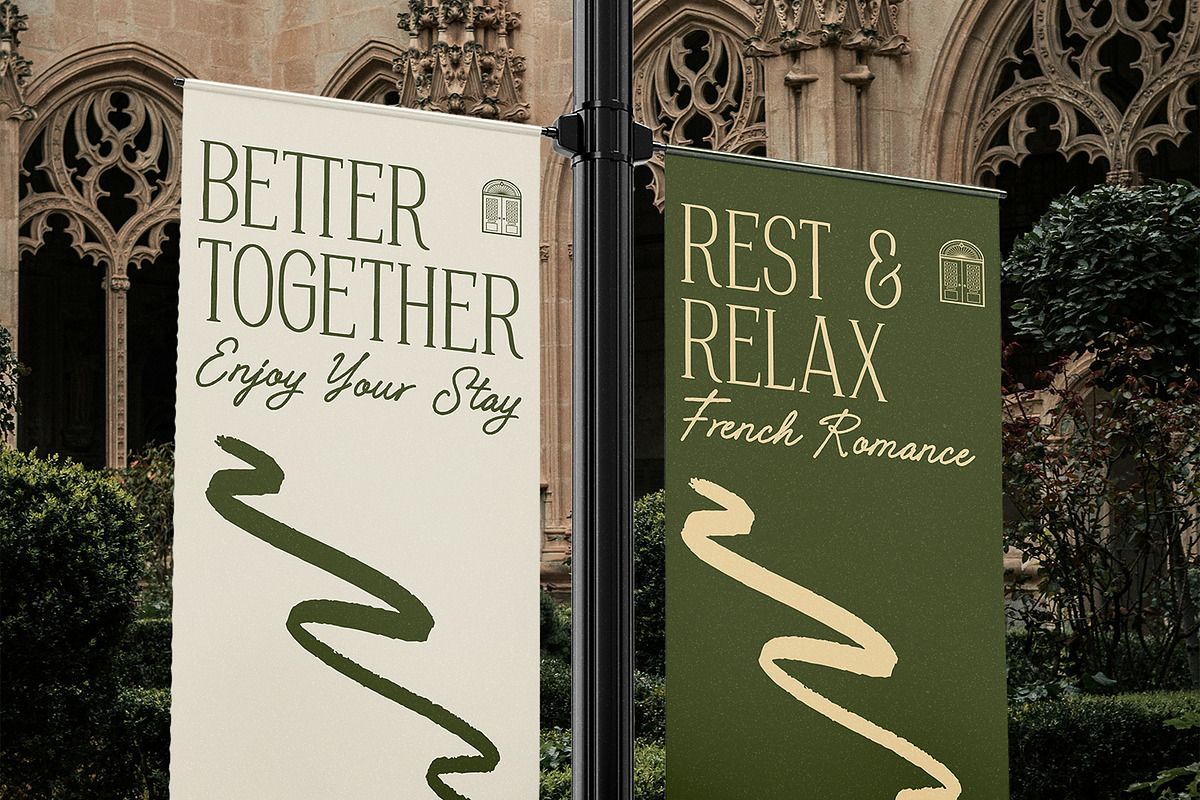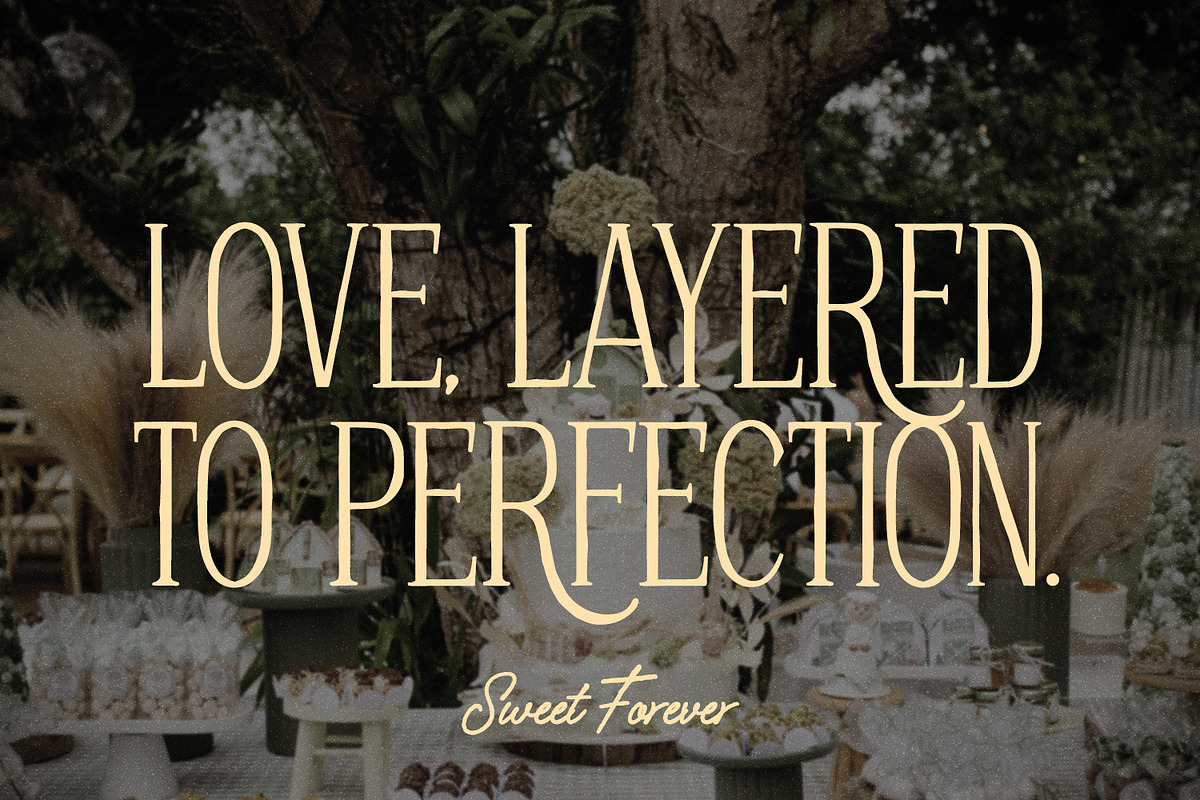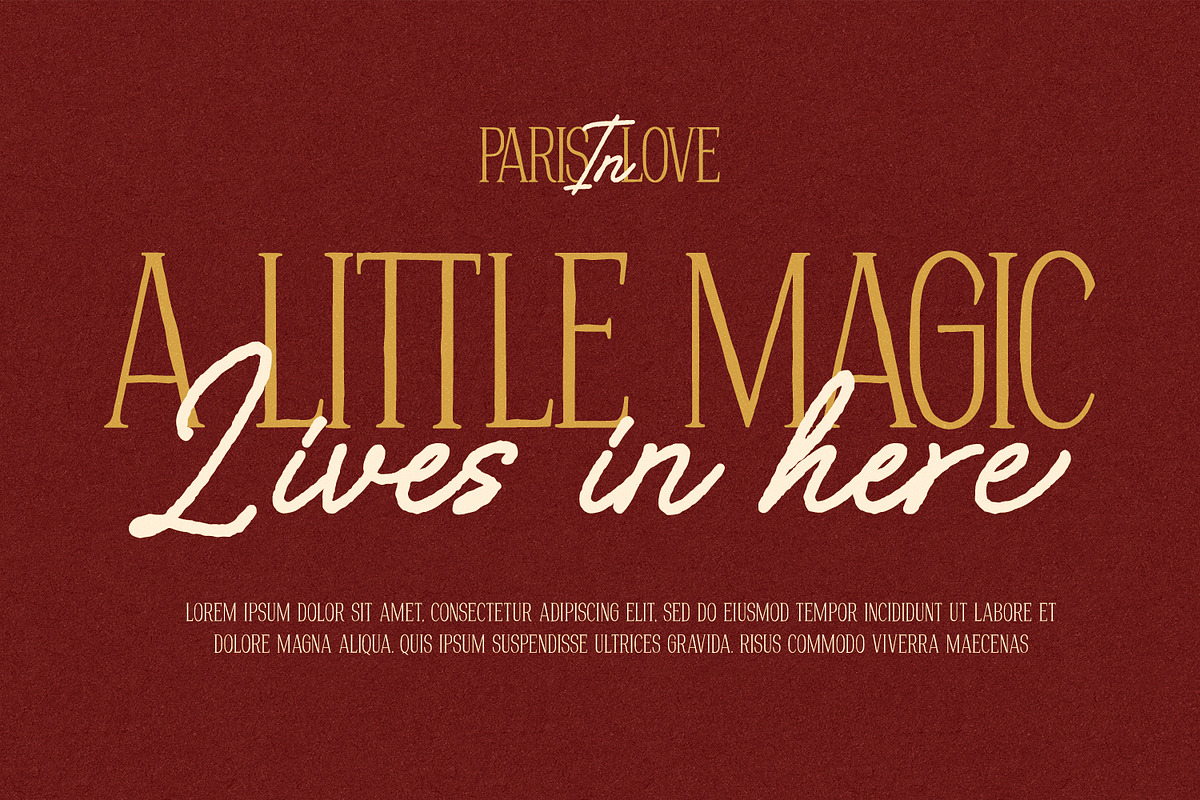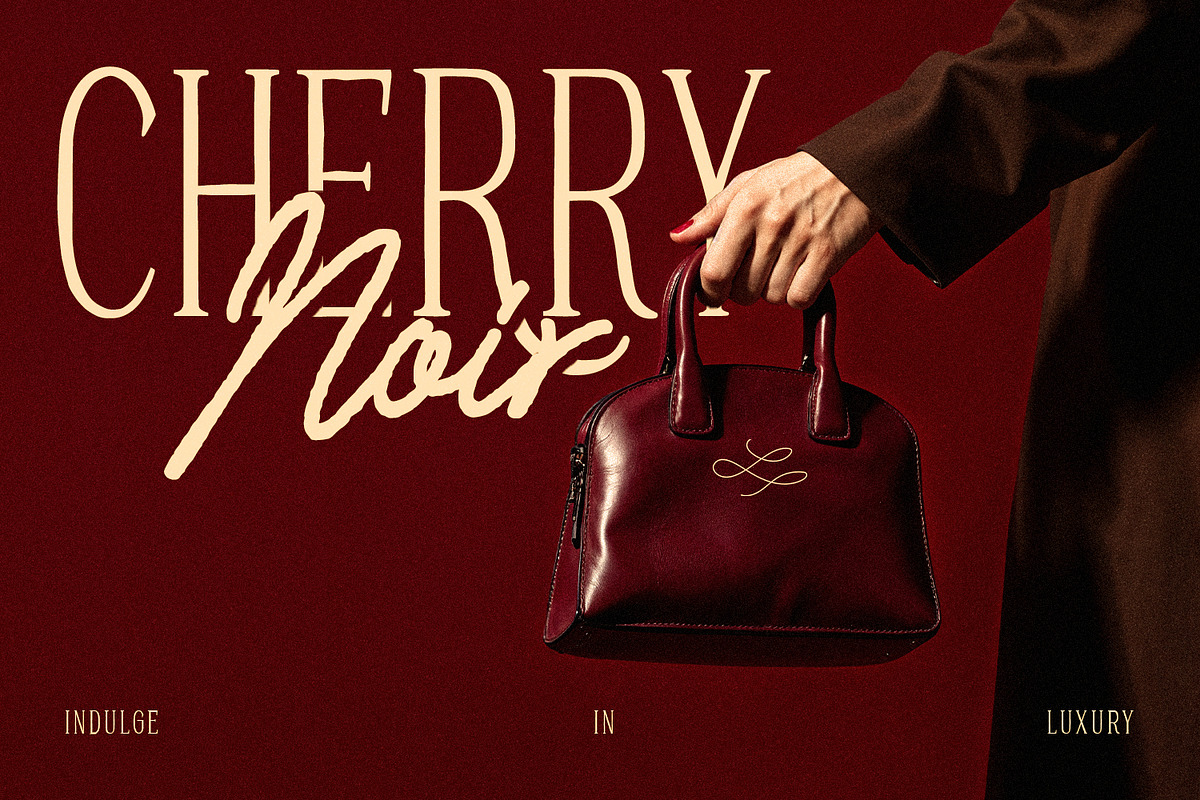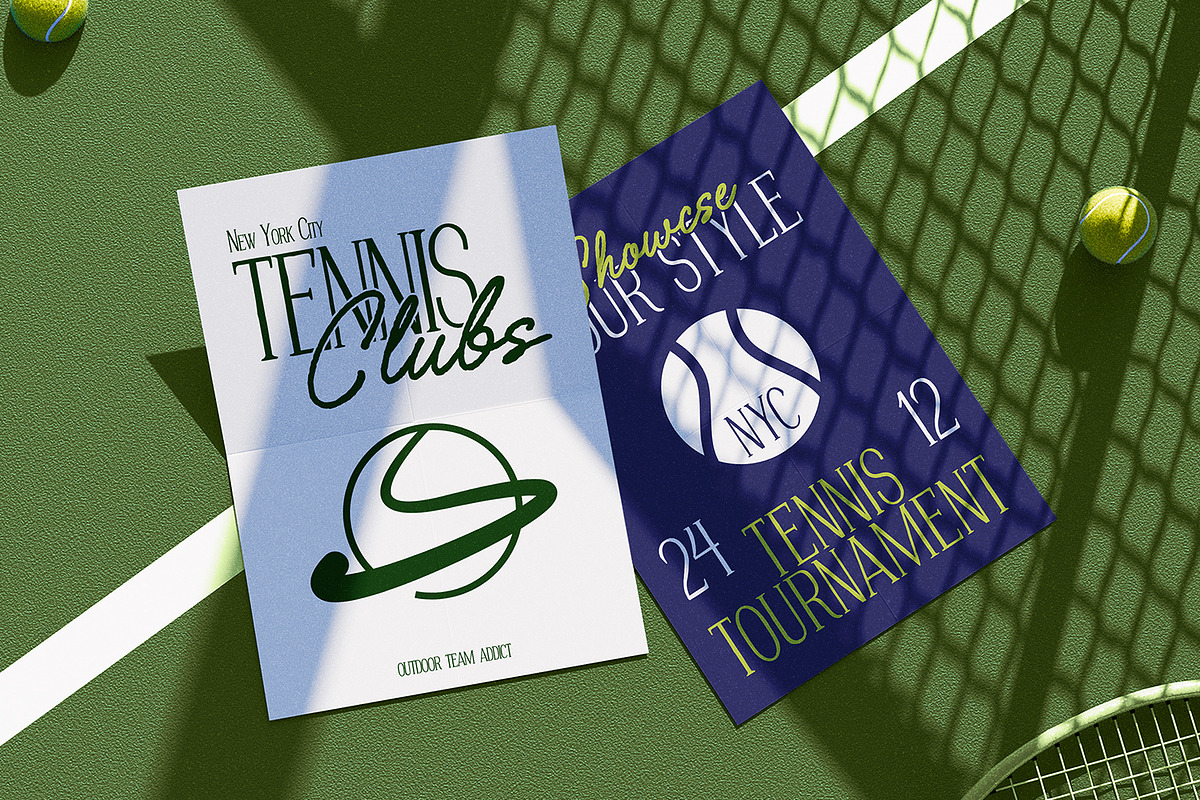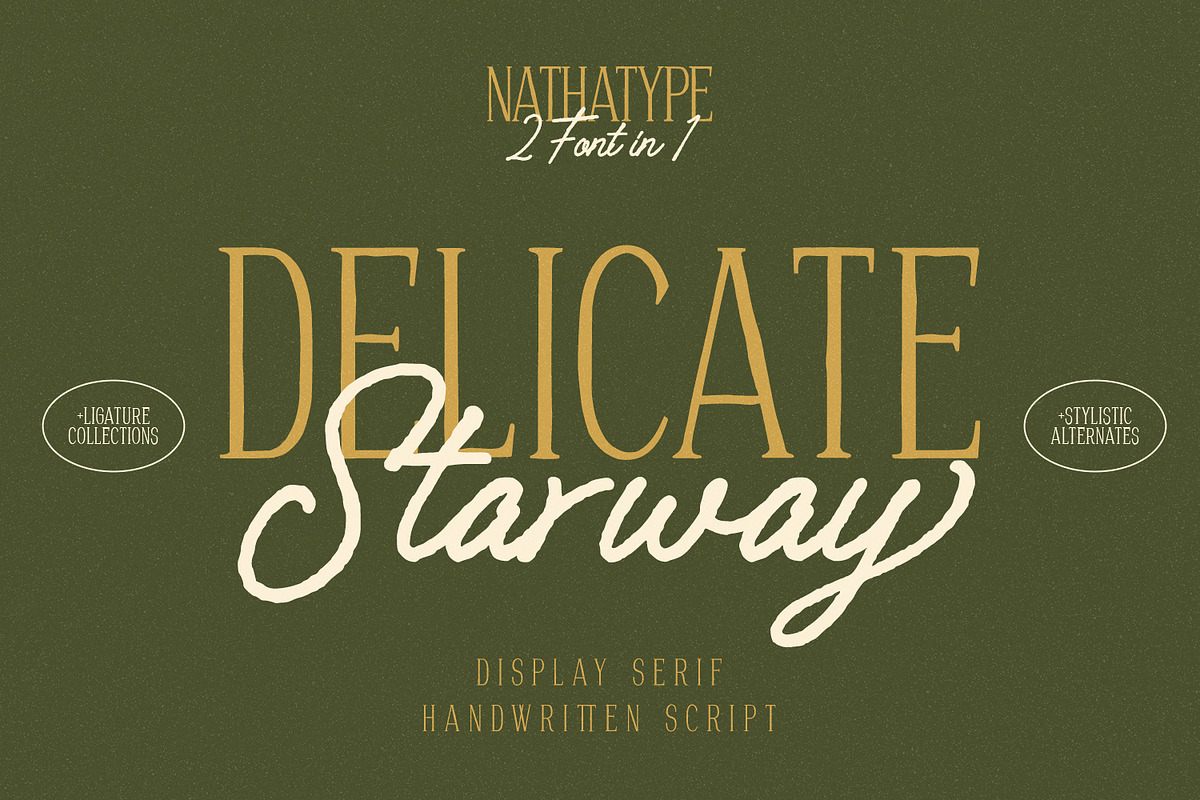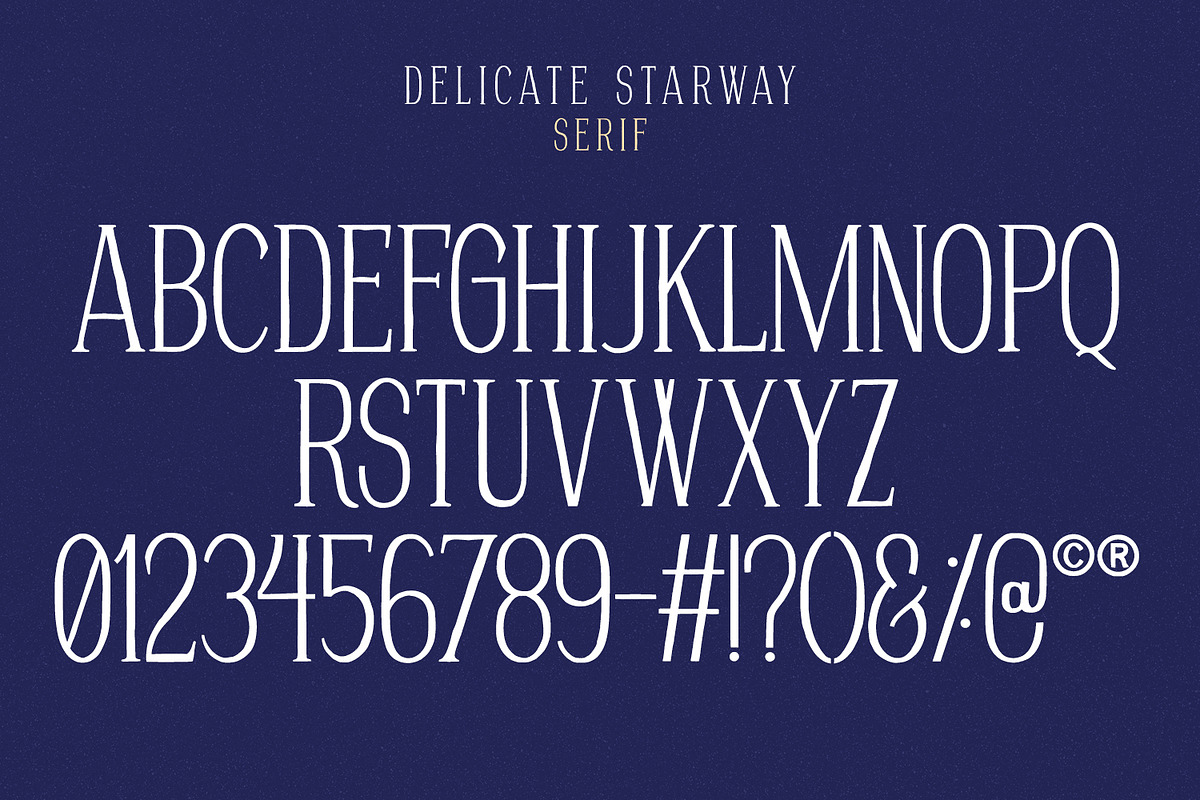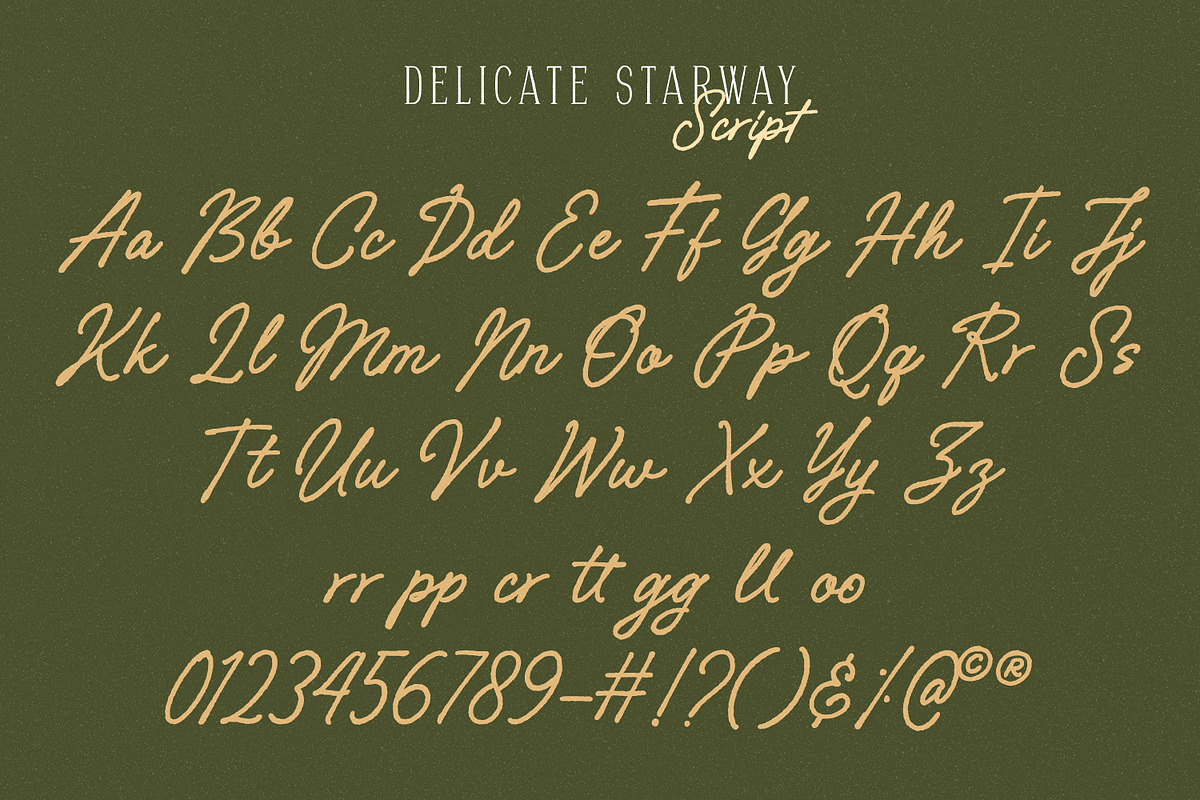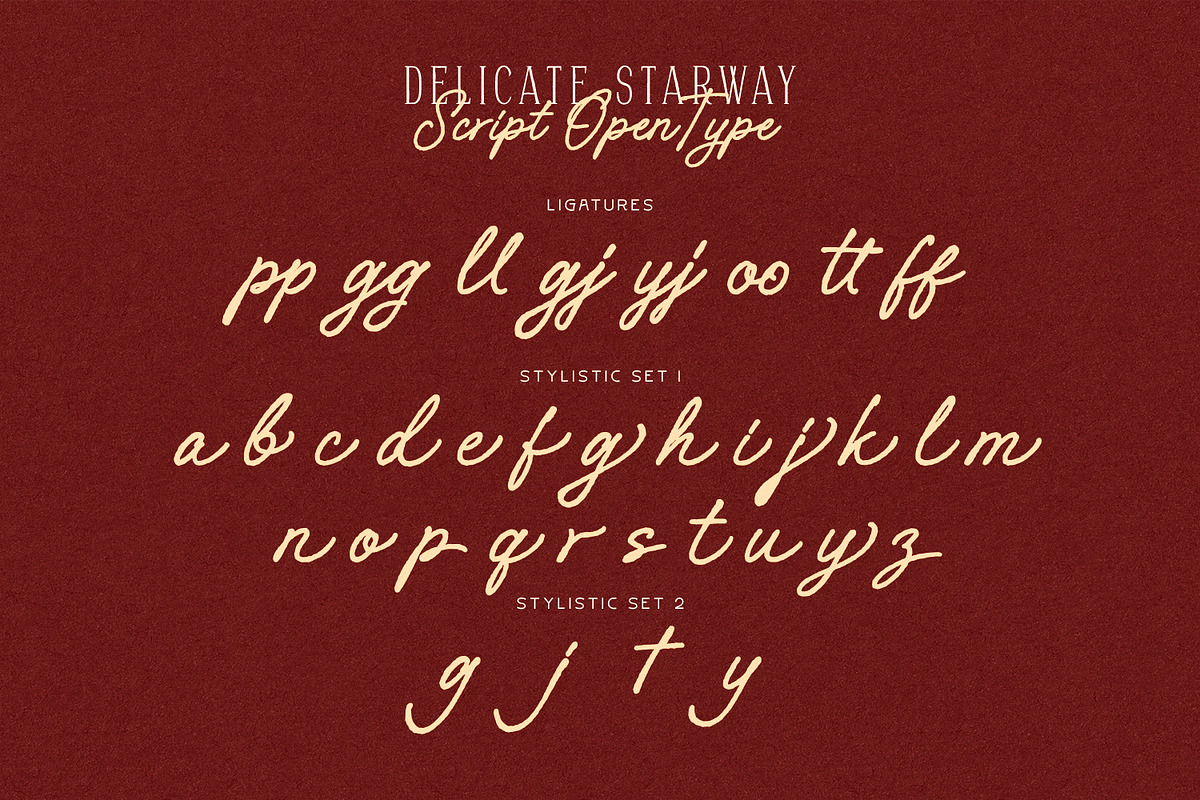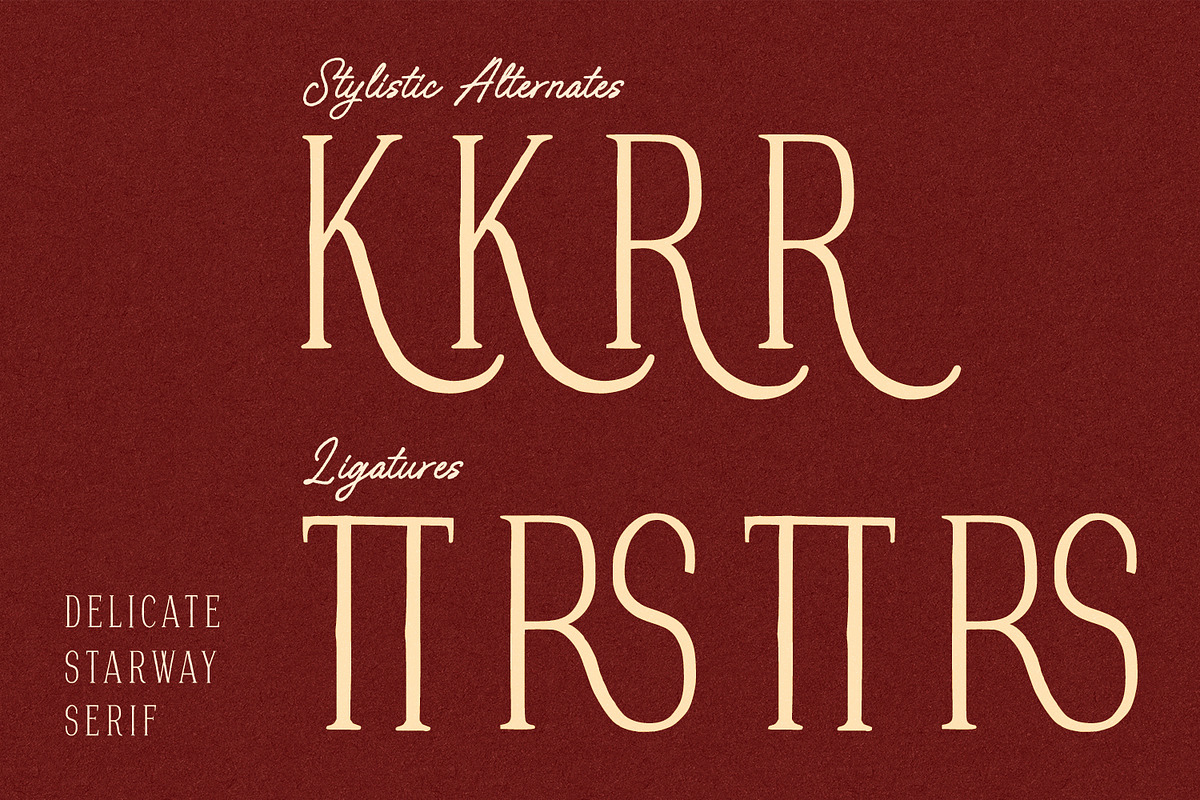
Delicate Starway
Delicate Starway is a beautifully crafted font duo that blends modern minimalism with natural handwritten charm. Designed for creators who want the perfect balance between structure and personality, this versatile typeface combination features a thin, uppercase display sans font paired with a soft, expressive handwritten script. Together, they create a harmonious visual contrast that feels both refined and effortlessly personal. In addition, enjoy the features here.
- Stylistic Sets
Delicate Starway fits in logos, quotes, branding, posters, and many more designs. Find out more ways to use this font by taking a look at the font preview.